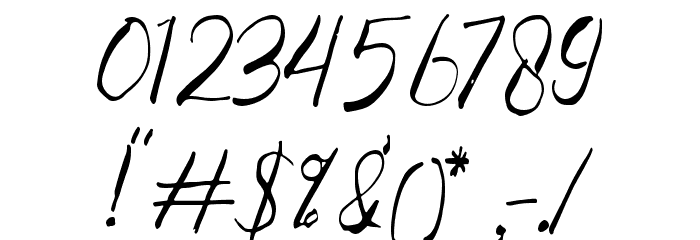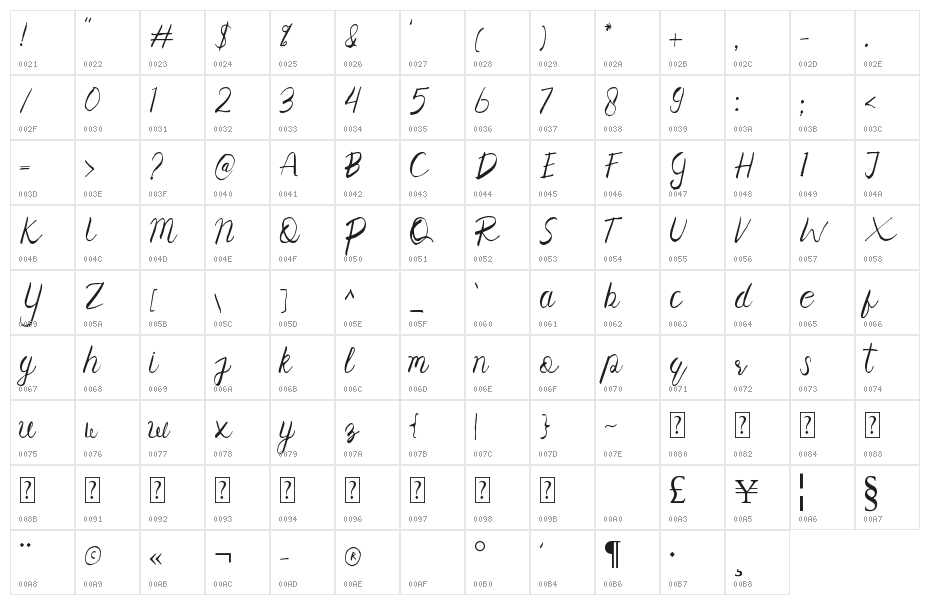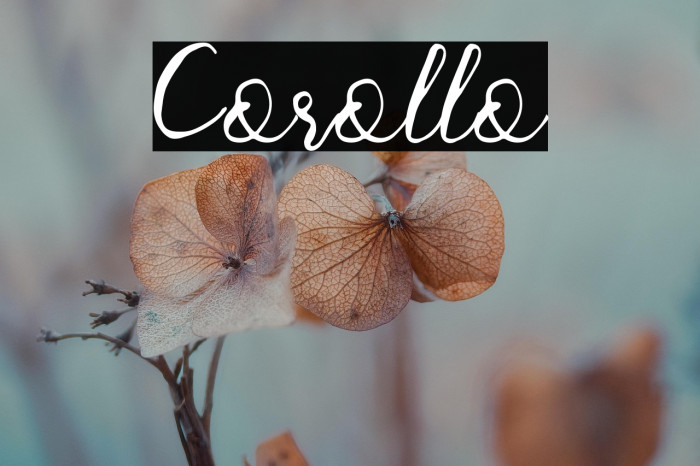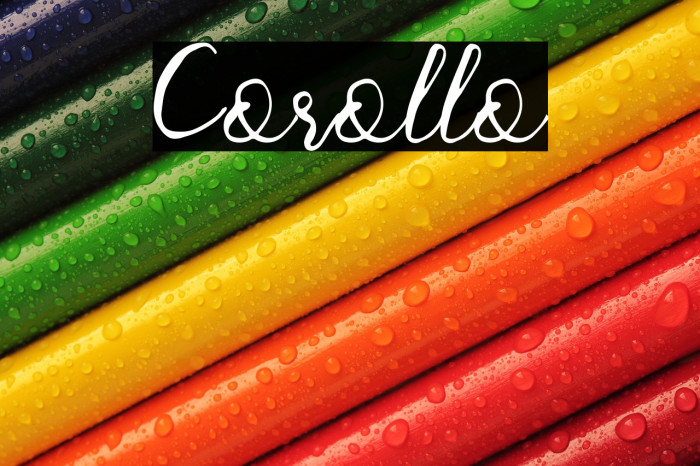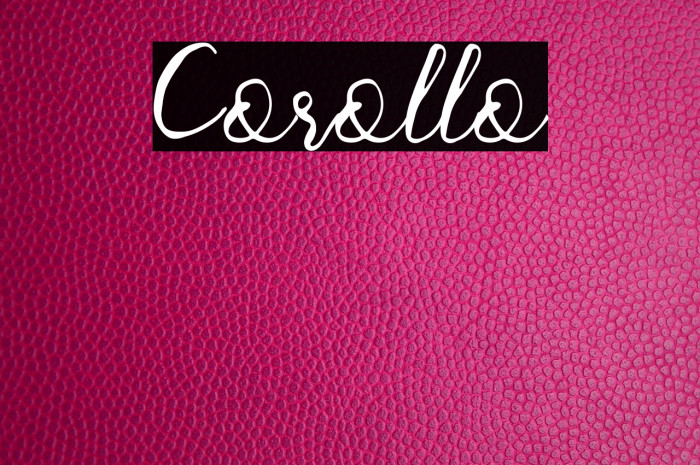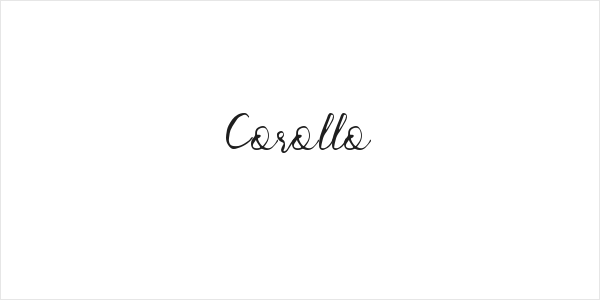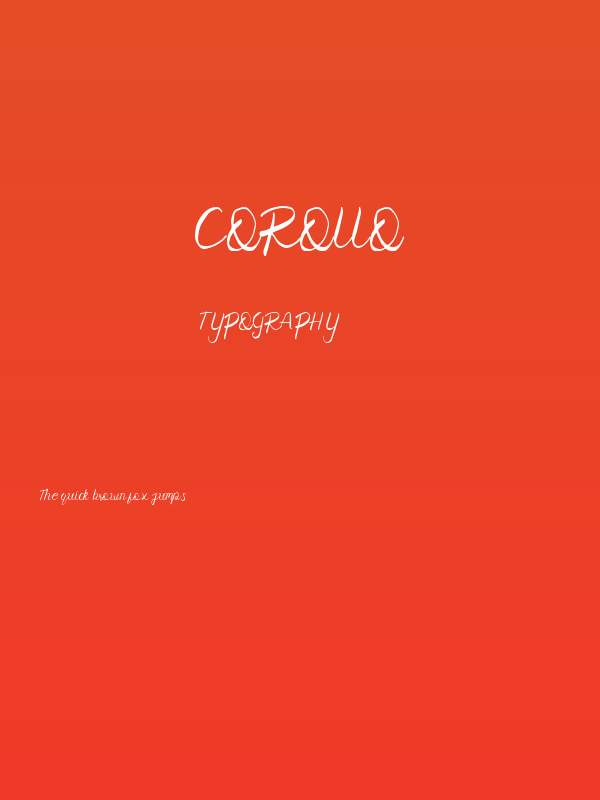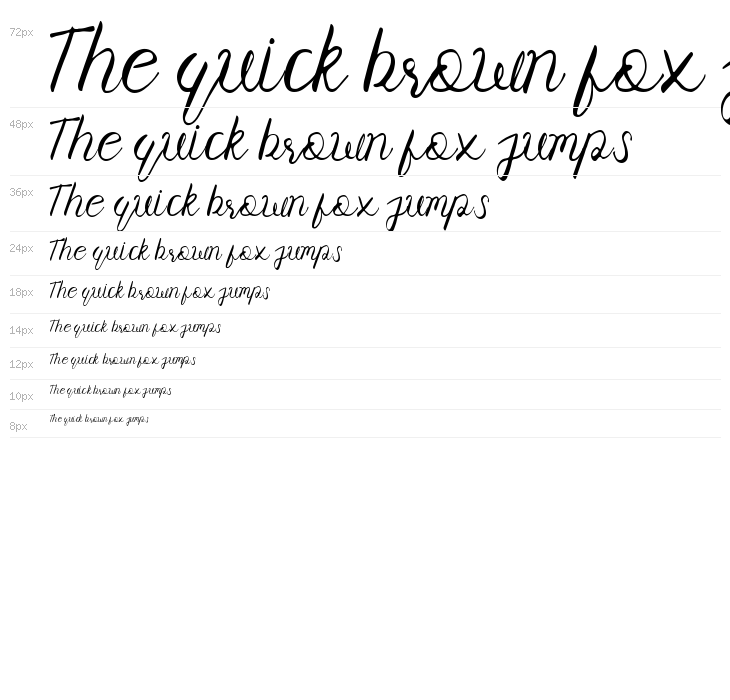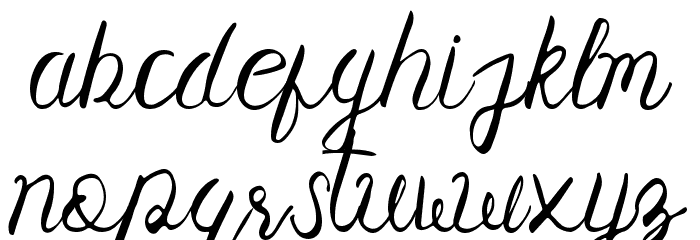
Corollo Font
Corollo Description
This font exudes a lively and dynamic character with its fluid, cursive style. The letters are crafted with a natural, handwritten feel, featuring smooth curves and elegant loops. The uppercase letters are bold and slightly slanted, while the lowercase letters maintain a consistent flow, enhancing readability. The numerals are distinct and well-proportioned, complementing the overall aesthetic. Special characters are creatively integrated, adding to the font's versatility. This font is perfect for projects that require a personal touch, such as invitations, greeting cards, and branding materials.